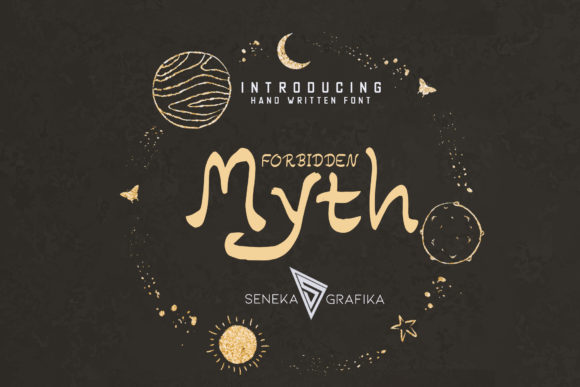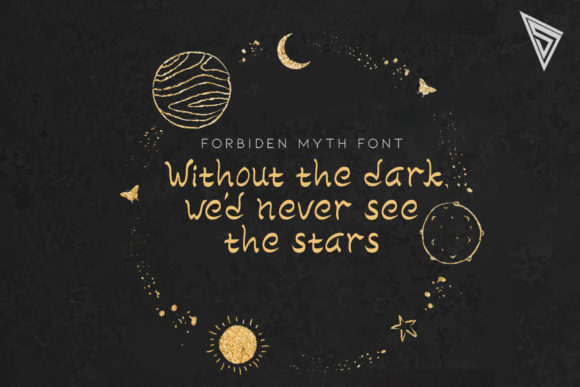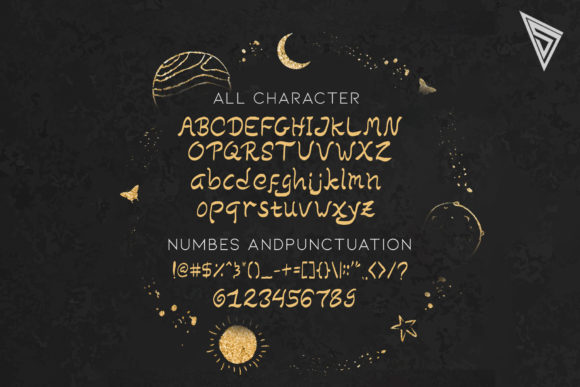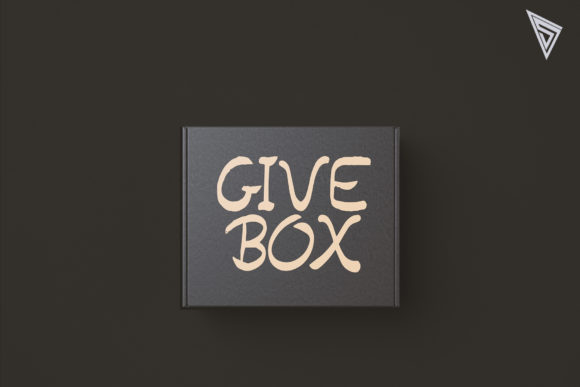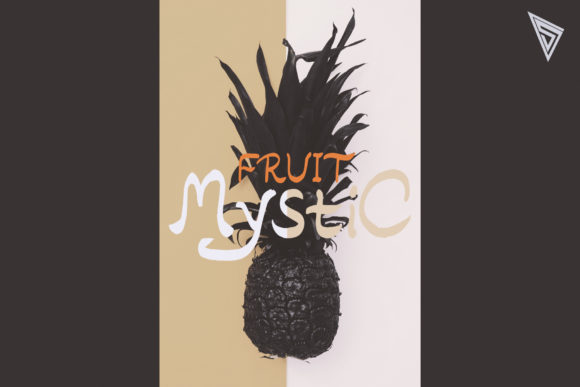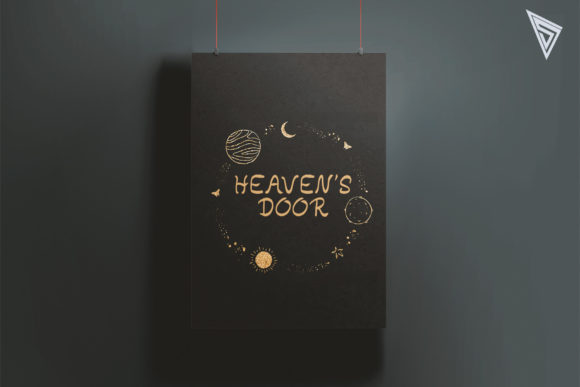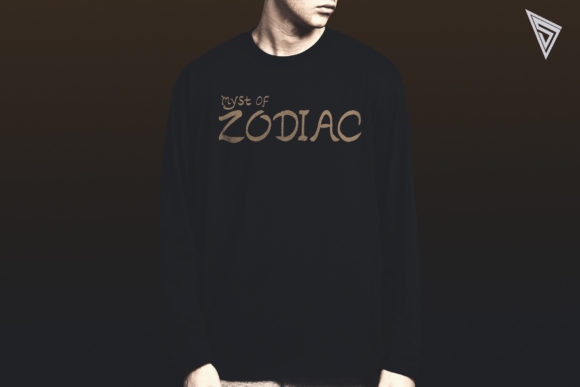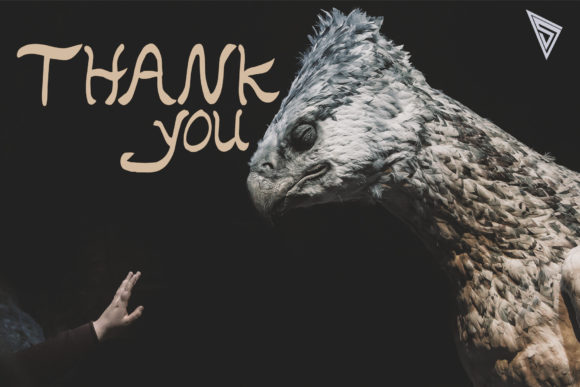
Forbidden Myth Font
Forbidden Myth – a traditional story, especially one concerning the early history of people or explaining some natural or social phenomenon typically involving a supernatural being or event.
“Forbidden Myth ” is a unique and simple handwritten font. It is mostly suitable for informal projects such as posters, postcards, personal branding, and more.